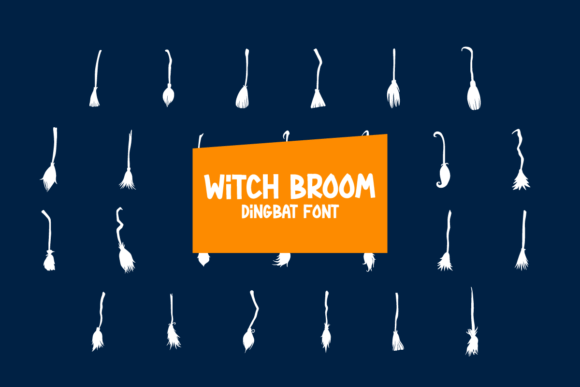
Unleash the magic of Witch Broom Font, a captivating dingbat font that will cast a spell on your creative projects. Inspired by the enchanting world of Halloween, this font boasts a captivating collection of glyphs, each meticulously crafted to embody the essence of witch brooms.
Step into a realm of creativity where your imagination runs wild. Witch Broom Font is the perfect companion for your artistic endeavors, offering endless possibilities for unique and captivating designs. Whether you're working on SVG files, crafting personalized graphics, designing eye-catching logos, or creating captivating social media posts, this font will add a touch of magic to all your endeavors.
With its intricate details and enchanting shapes, Witch Broom Font will transform your designs into captivating masterpieces. Each glyph is a work of art, inviting you to explore the realm of visual storytelling. Craft spellbinding logos that leave a lasting impression, create social media posts that captivate your audience, or design stickers that add a touch of whimsy to your everyday life.
Benefits:
- Unleash your creativity and bring your designs to life with captivating glyphs inspired by the enchanting world of Halloween.
- Perfect for a wide range of creative projects, including SVG files, crafts, graphic tees, logos, social media, and stickers.
- Elevate your designs with intricate details and enchanting shapes that add a touch of magic to your work.
- Craft spellbinding logos, captivating social media posts, and whimsical stickers that leave a lasting impression.
- Experience the magic of Witch Broom Font and let your imagination run wild.